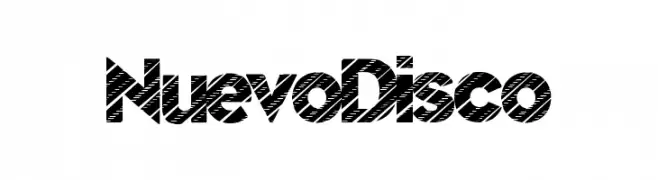
A bold, distressed font with a grunge texture and rugged appearance.
A playful, melting-style font with bold, outlined characters on a black background.
A bold, distressed font with a rugged, grunge-like appearance.
A bold, modern font with a unique diagonal line pattern for dynamic visual appeal.
A bold, decorative font with circular cutout patterns for a playful, artistic look.
A bold, brush script font with a textured, hand-painted appearance.
A playful, casual handwritten font with irregular strokes.
A modern, geometric font with thin, elongated letterforms and a futuristic style.
A bold, artistic handwritten font with dynamic, slanted characters.
A dynamic, edgy font with irregular, jagged strokes and a hand-drawn appearance.